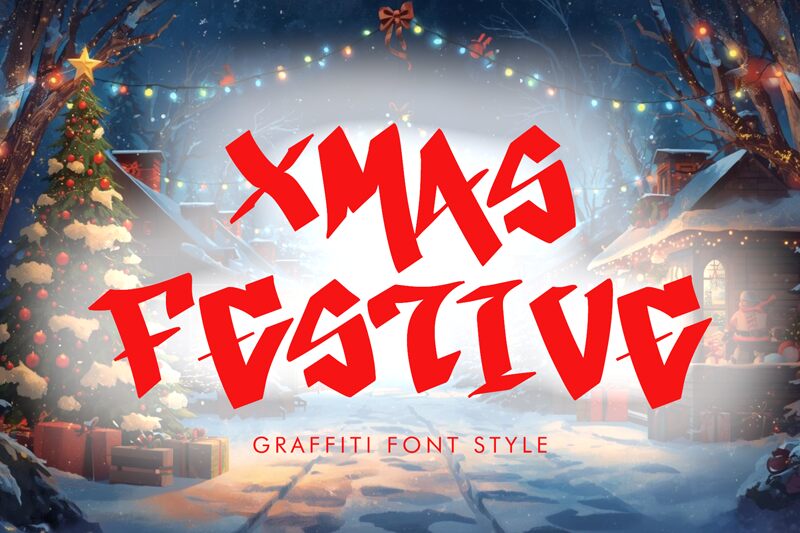
Xmas Festive font designed by Yoga Letter is a graffiti-inspired font that draws inspiration from the exciting style of graffiti art. This energetic typography trends toward a youthful and urban feel, which can be noticed through its sharp forms and modern influence. This free font can serve as an engaging display for different purposes.
Use this font in flyer layouts, headlines, logos and visual identity kits, magazine covers, social media posts, billboards, banners, and video games design, or use it to create animated motion graphics as well. Xmas Festive goes well with brick textures, and colorful visuals, and can also be combined with other more moderate fonts.